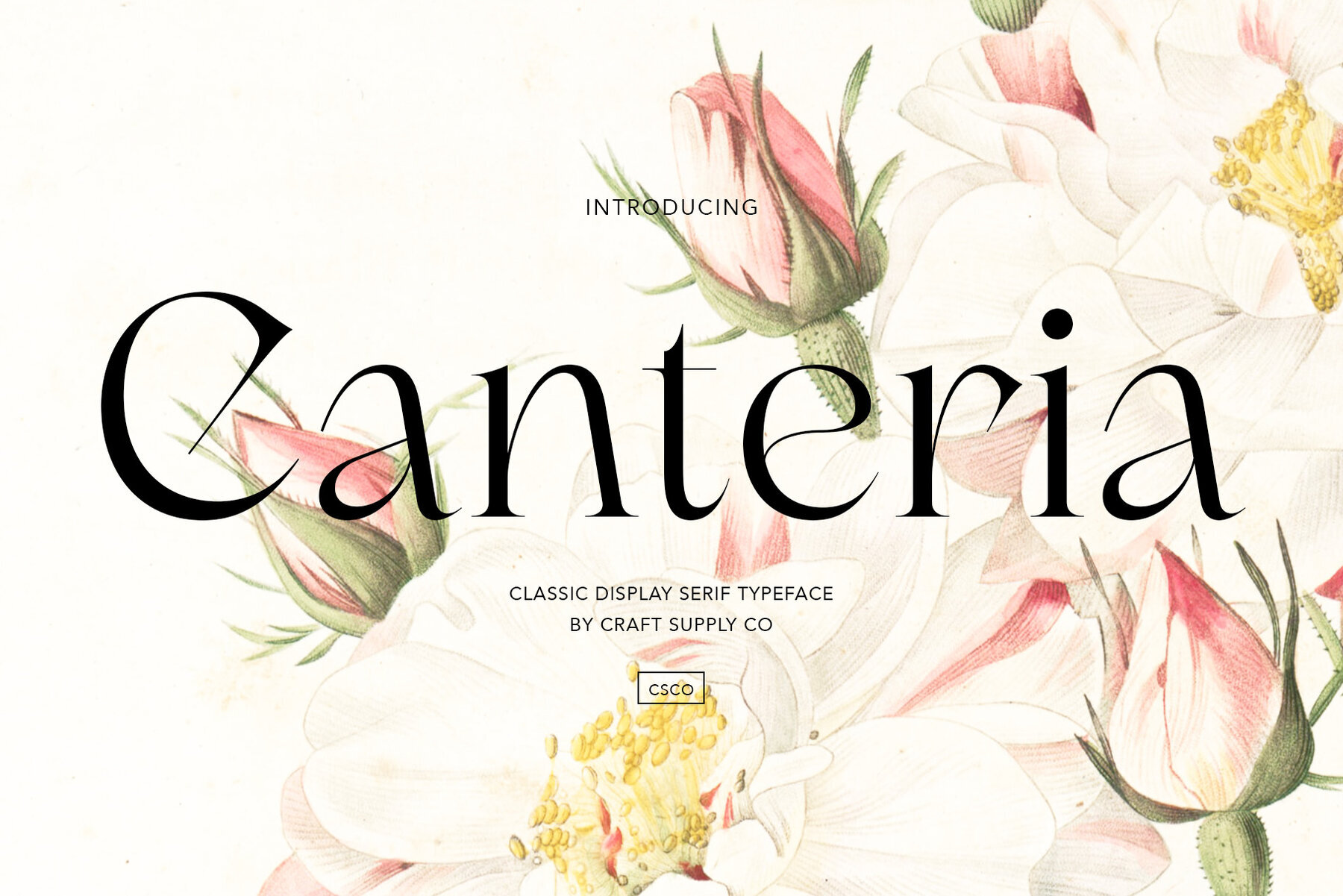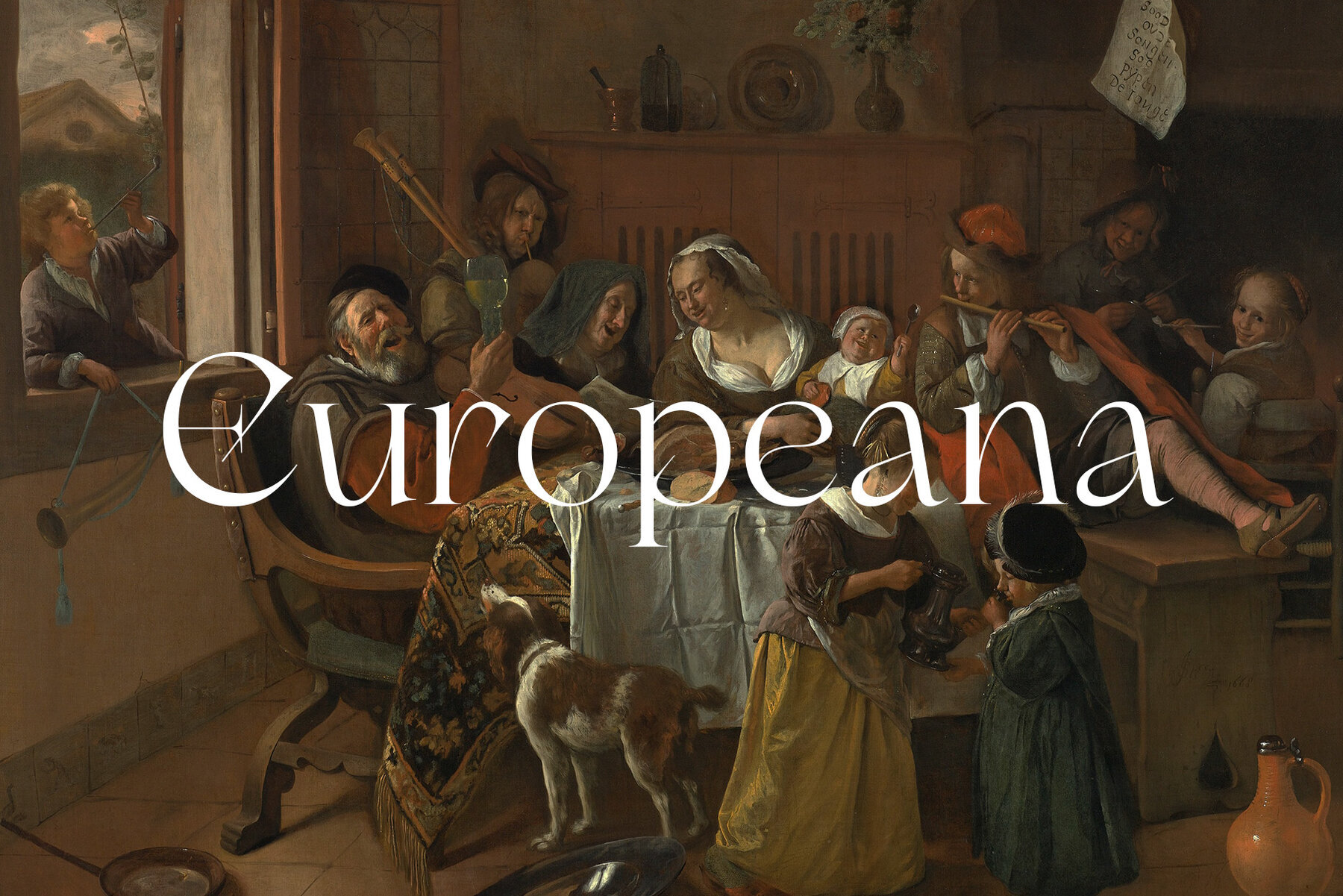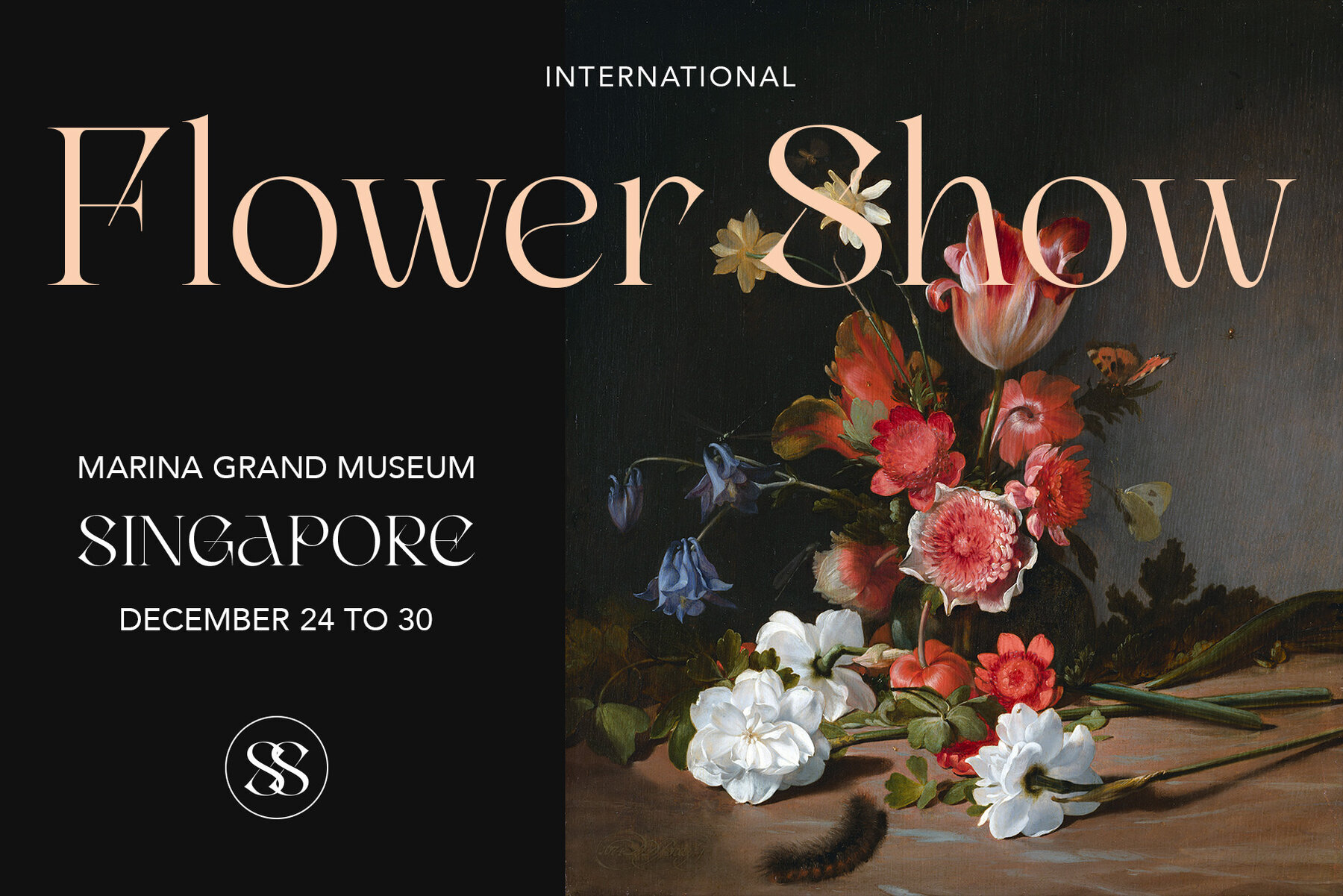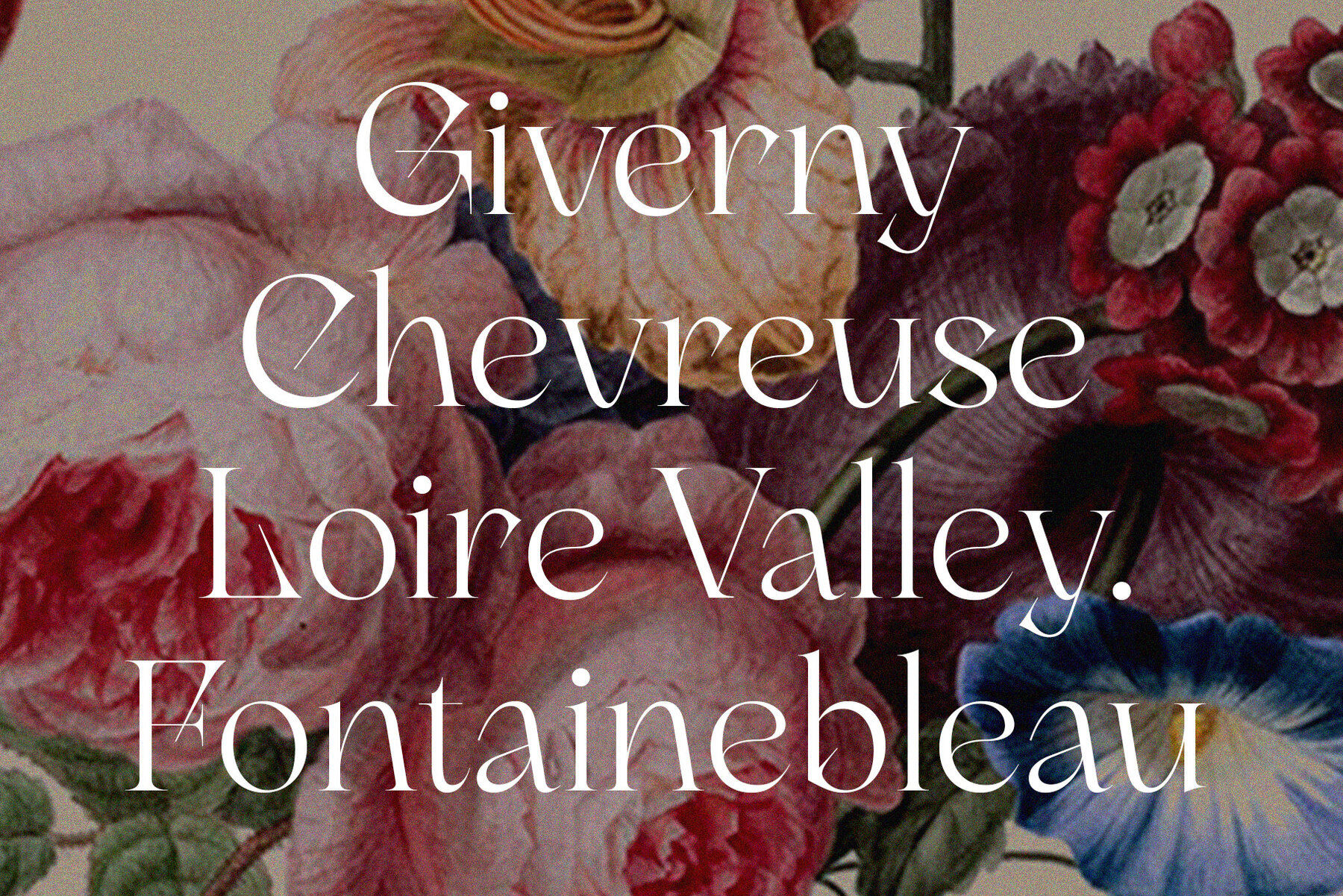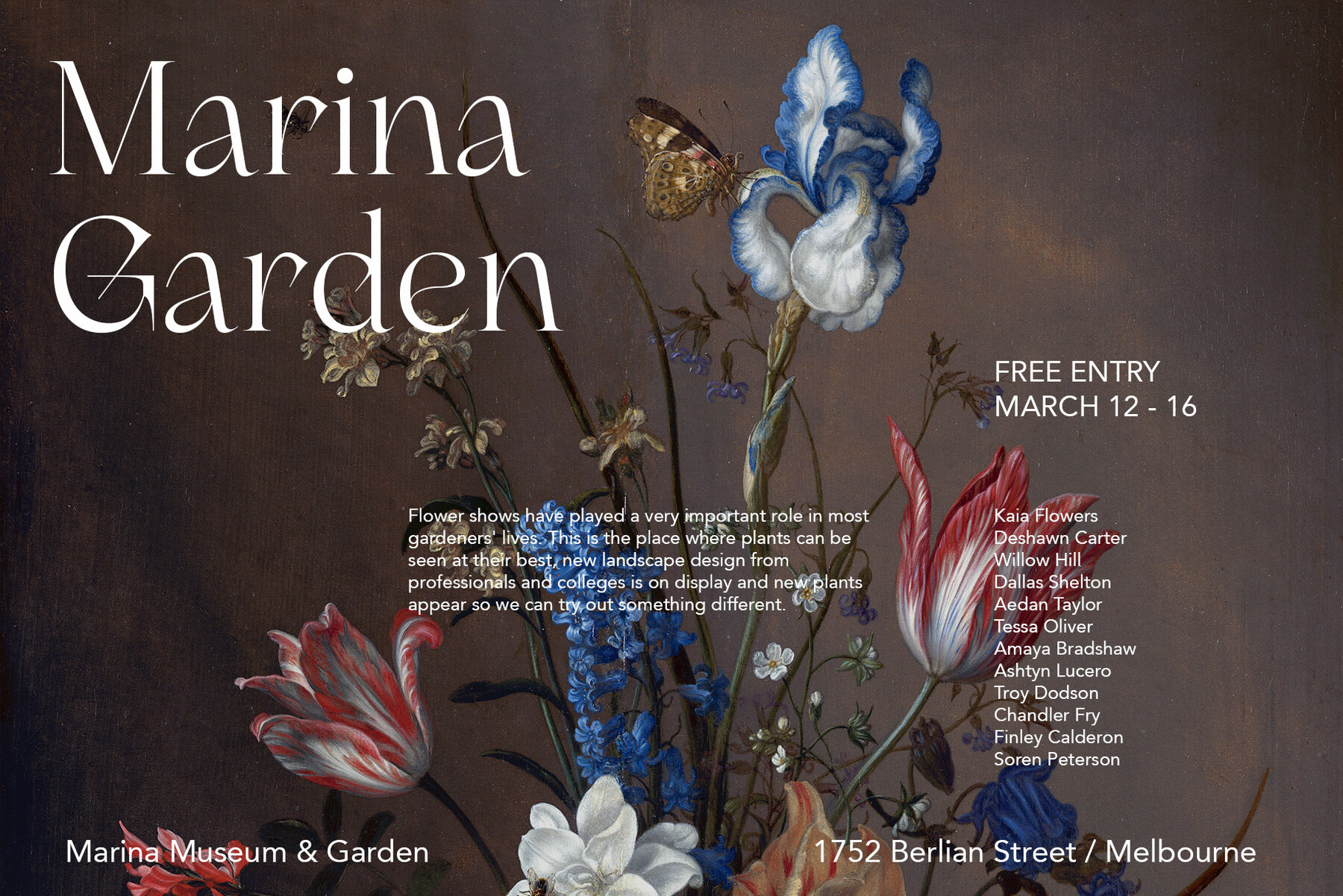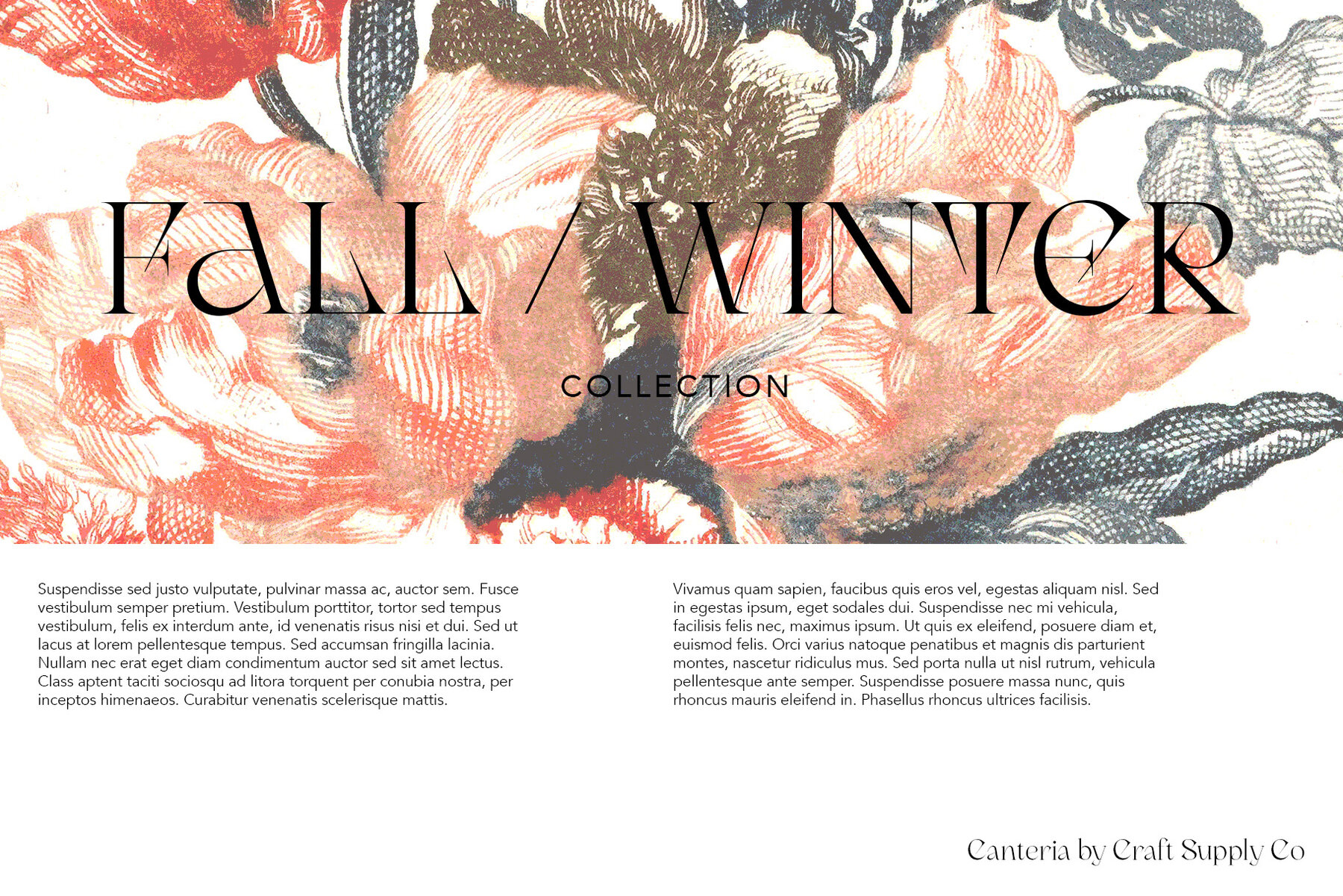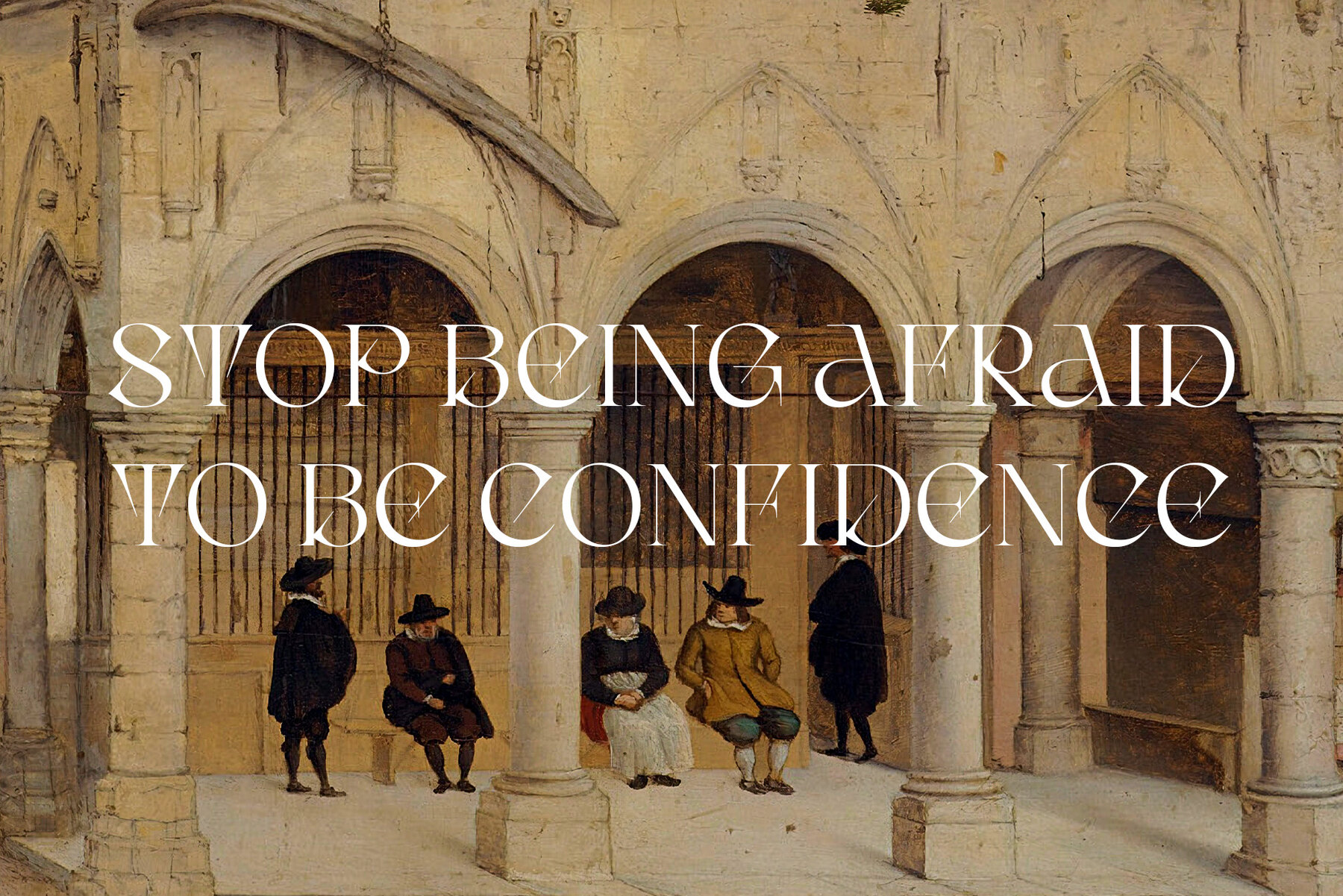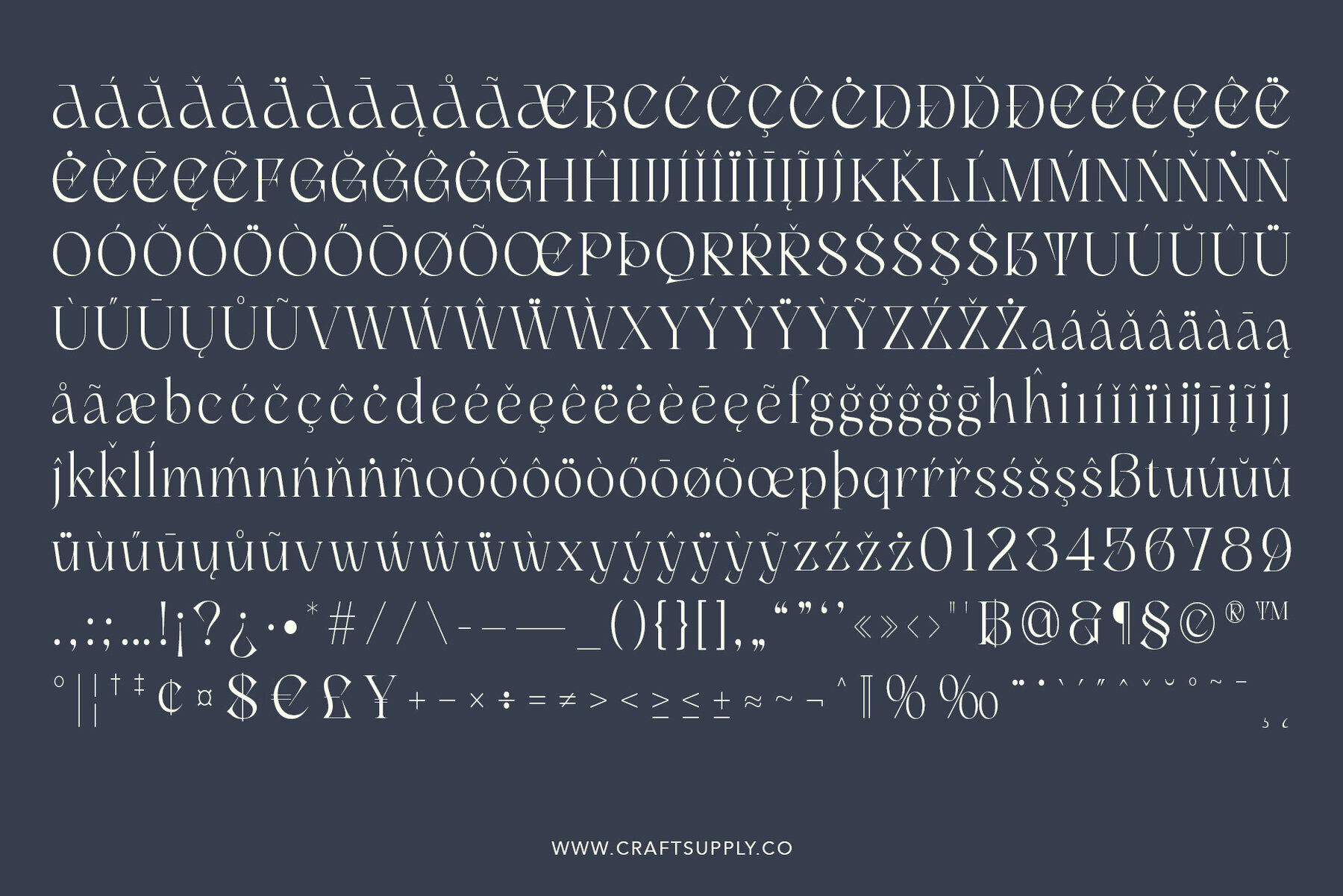
Introducing Canteria, a charismatic serif typeface with elegant and classical form structure to maintain a flashy look for display purposes.
You want to make a greeting card or a package design, or even a brand identity, craft design, any DIY project, book title, poster, pop vintage design, retro design or any purpose to make your art/design project look pretty and trendy? Feel free to play with this typeface!